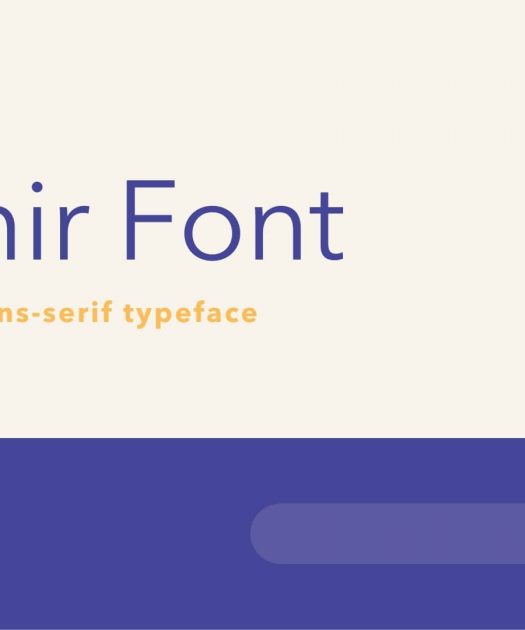
You should aim for the Avenir font with reference to the geometric typeface. It is a popular typeface that can also be used free of charge. This is the font’s history. This beautiful font was designed and created by Adrian Frutiger, a well-known font designer.
The design of this font is the greatest work of Adrian. Font of the 1920s, i.e., Futura Font, inspired the font. Avenir is primarily a French term, the name of this font. It means “Future” in English.
Designer | Adrian Frutiger |
Category | Sans Serif |
Foundry | Mergenthaler Linotype Company |